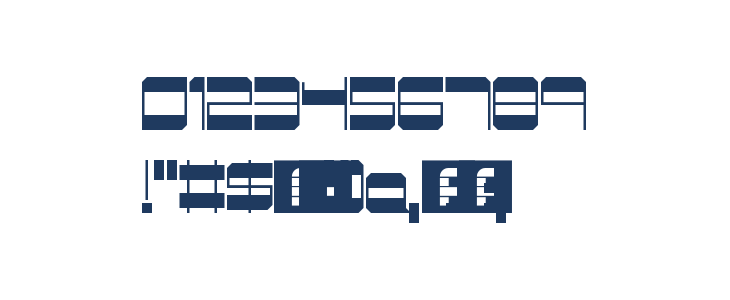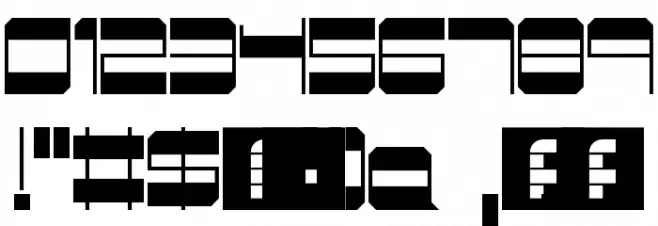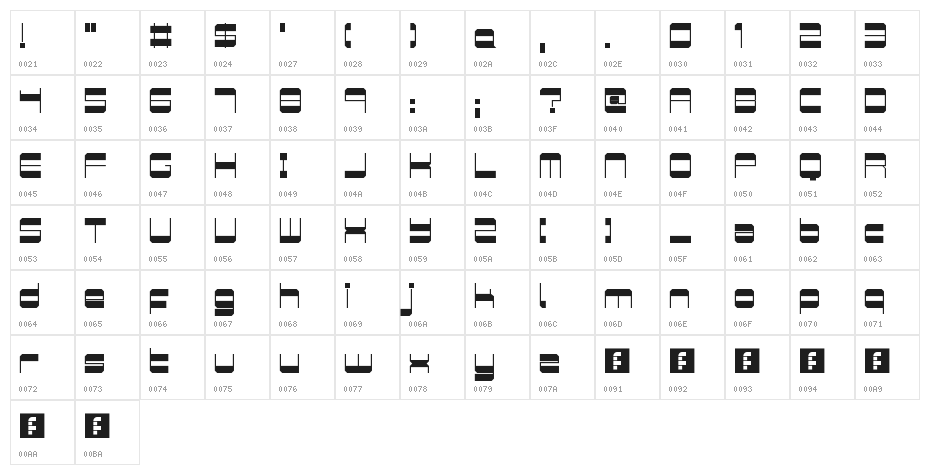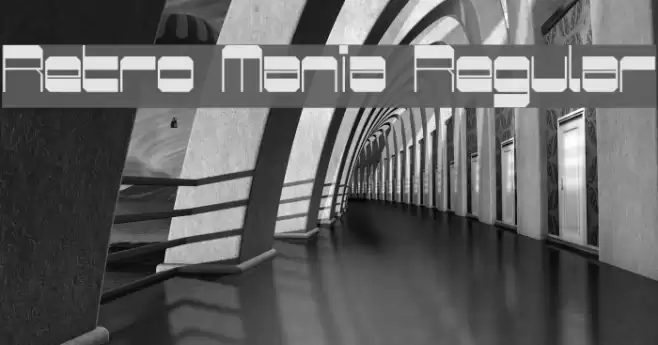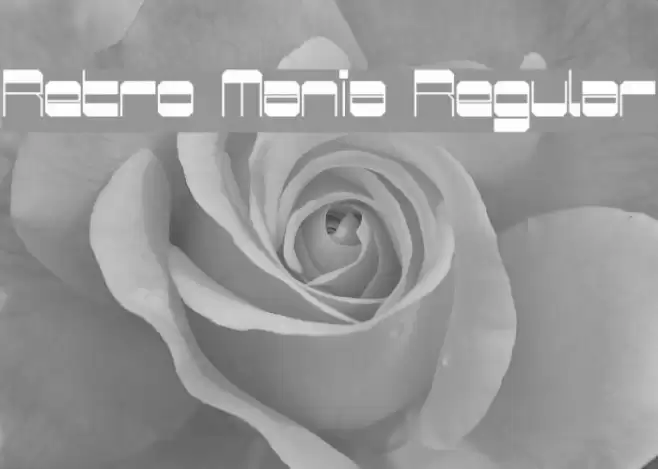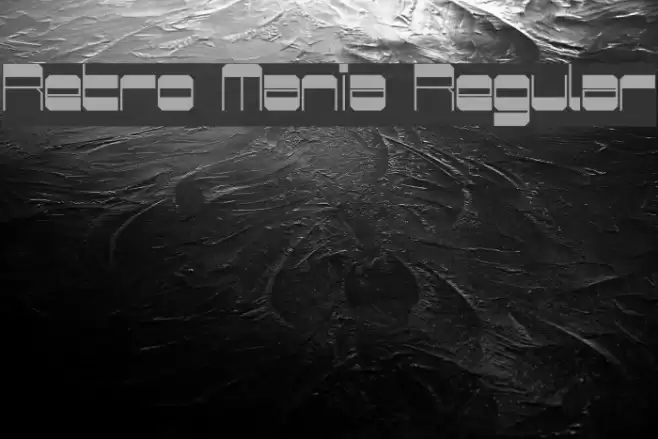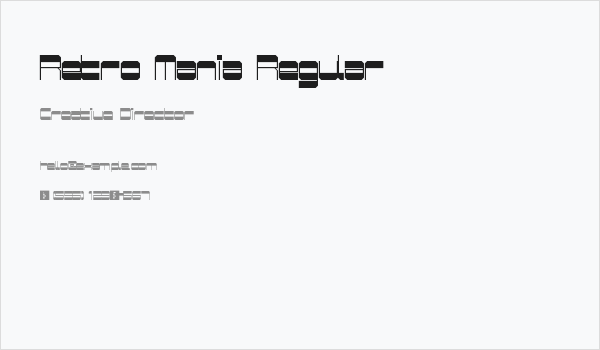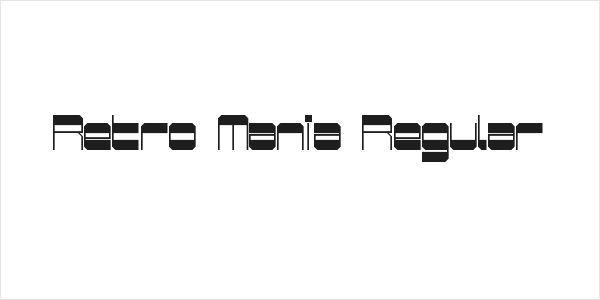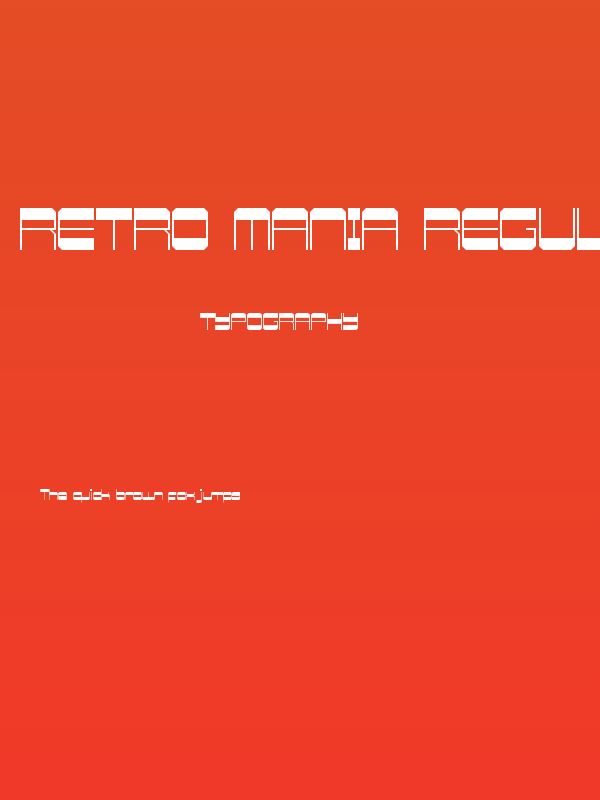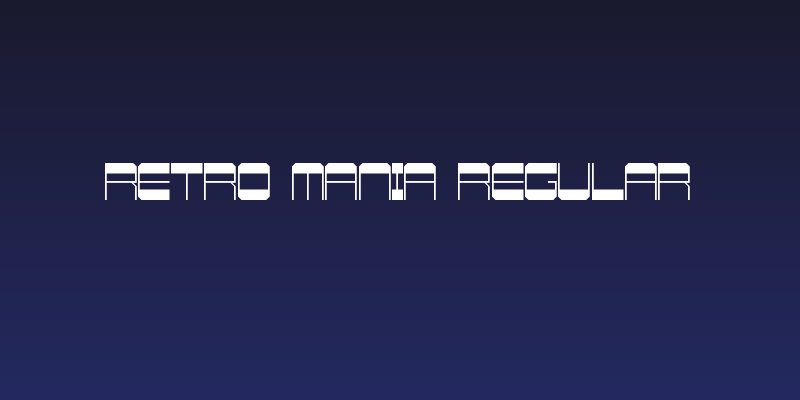
Retro Mania Regular Font
Retro Mania Regular Description
This font features a bold, geometric design with a distinctly retro-futuristic aesthetic. The characters are constructed with sharp angles and straight lines, creating a sense of precision and modernity. The uppercase and lowercase letters maintain a consistent structure, with the uppercase being slightly more pronounced. The numerals and special characters follow the same design principles, ensuring uniformity across the typeface. The font's unique style makes it stand out, with a blocky appearance that is both eye-catching and legible. Its design is reminiscent of early digital or arcade game typography, making it ideal for projects that aim to evoke a sense of nostalgia or futuristic themes.
| Overall Style | Retro-Futuristic |
| Proposed Projects | Perfect for video game design, retro-themed posters, digital art, and branding that requires a futuristic or nostalgic touch. |